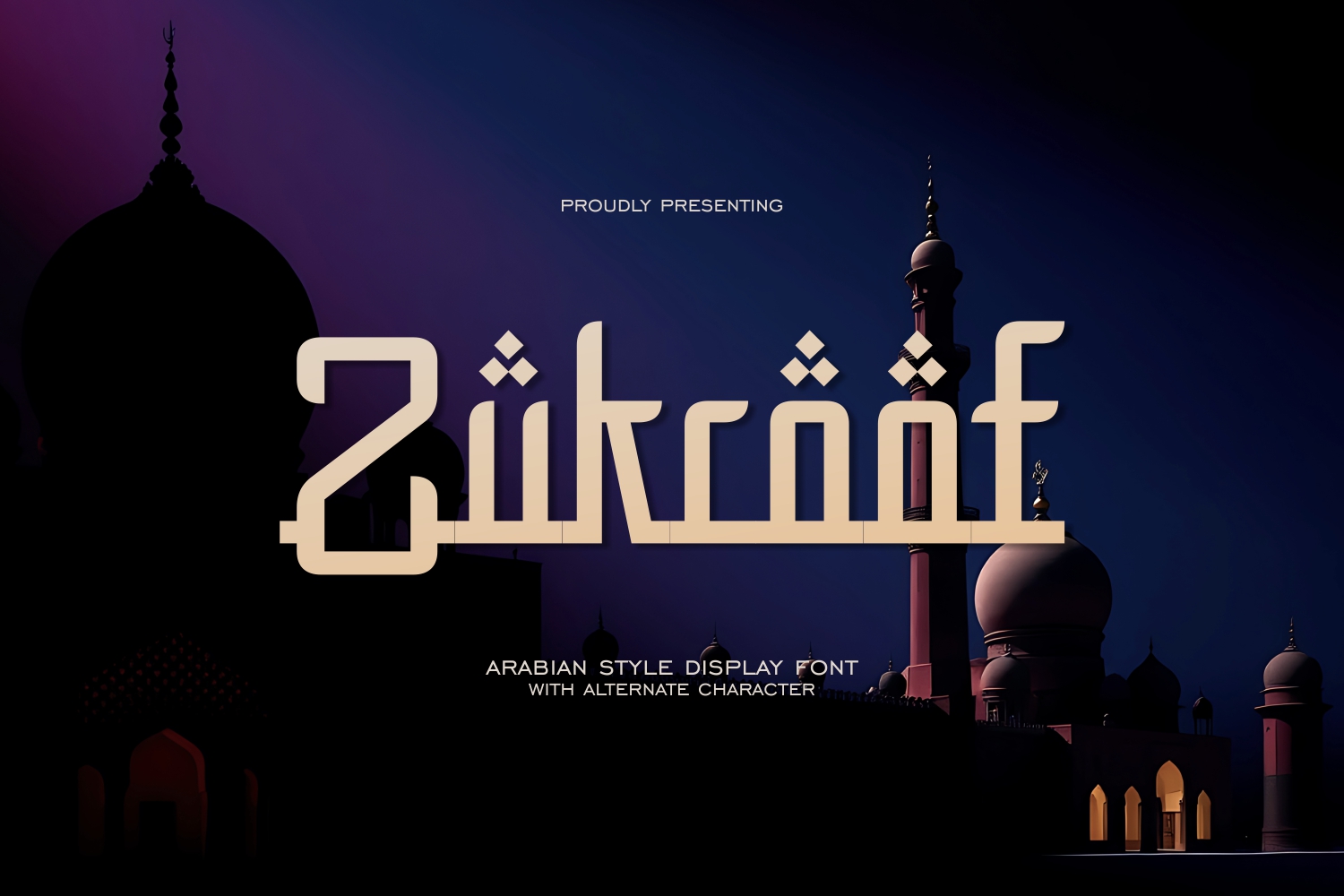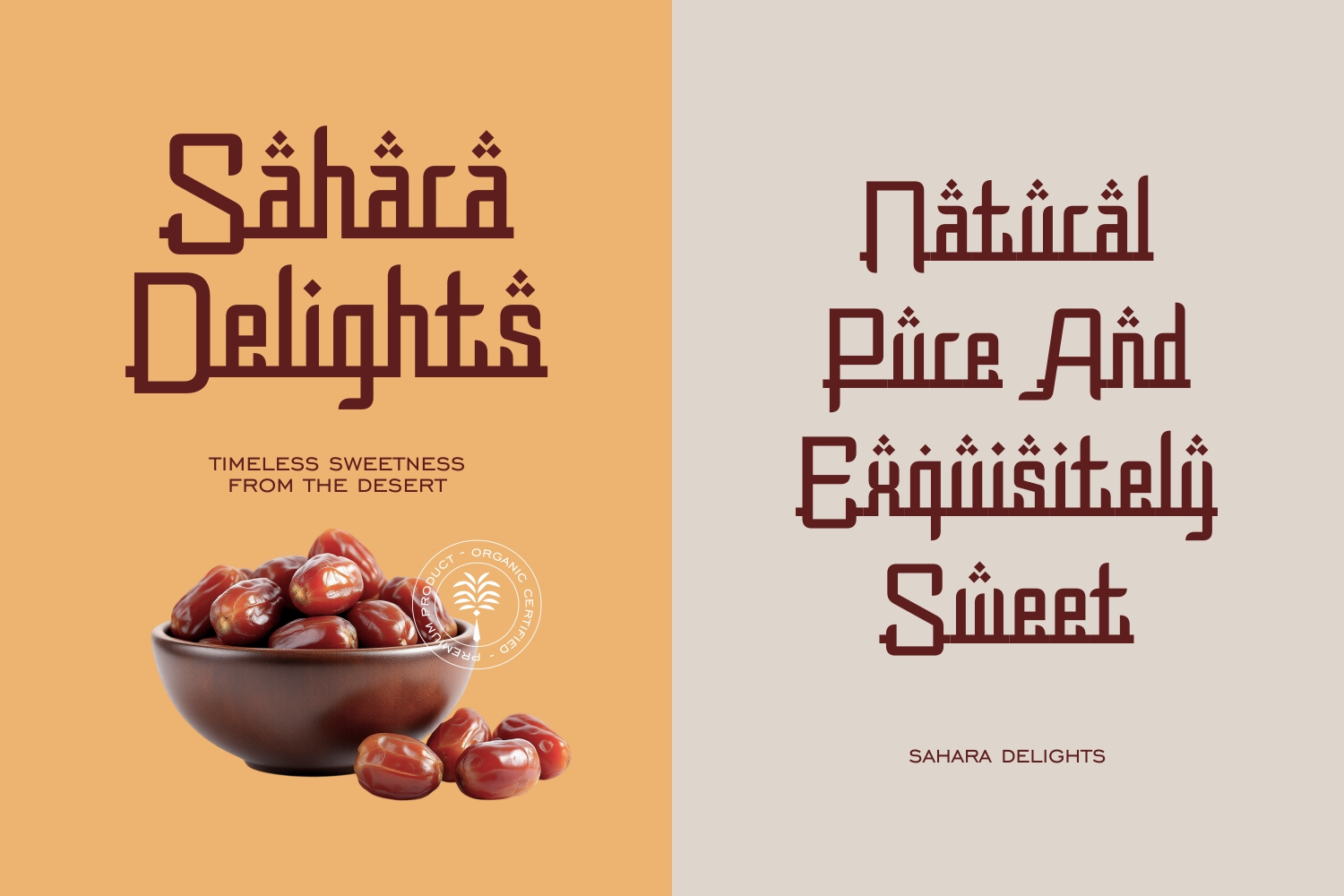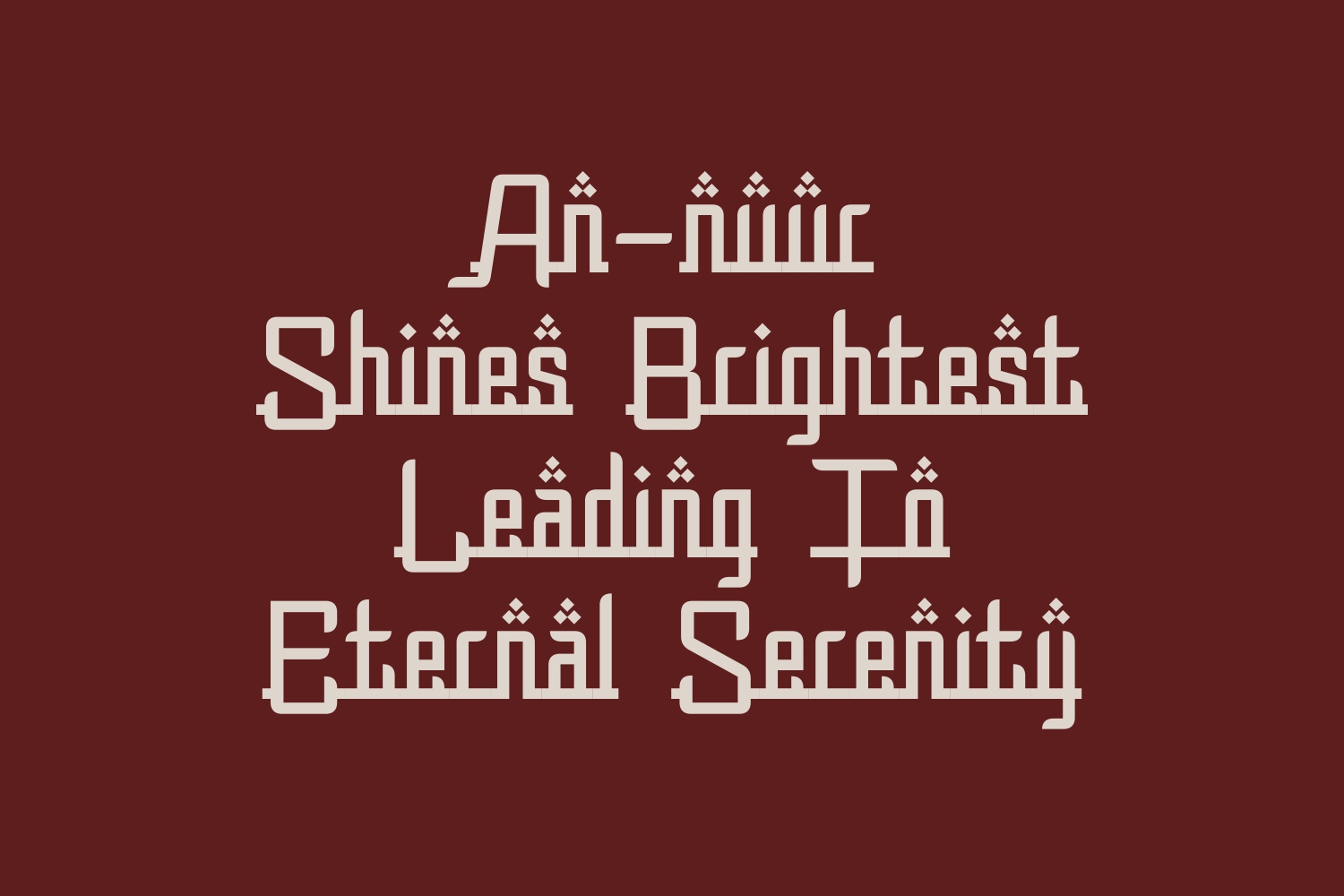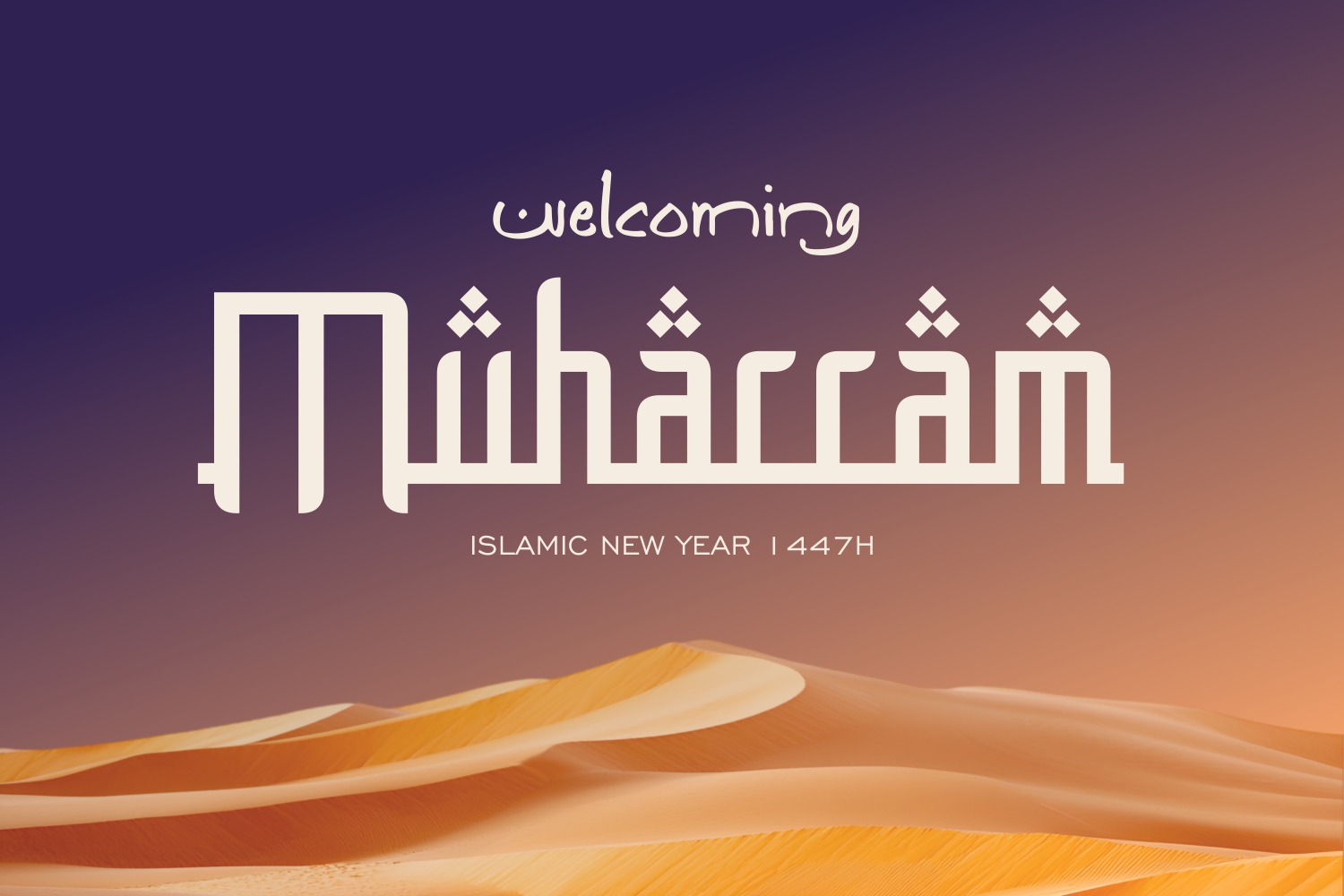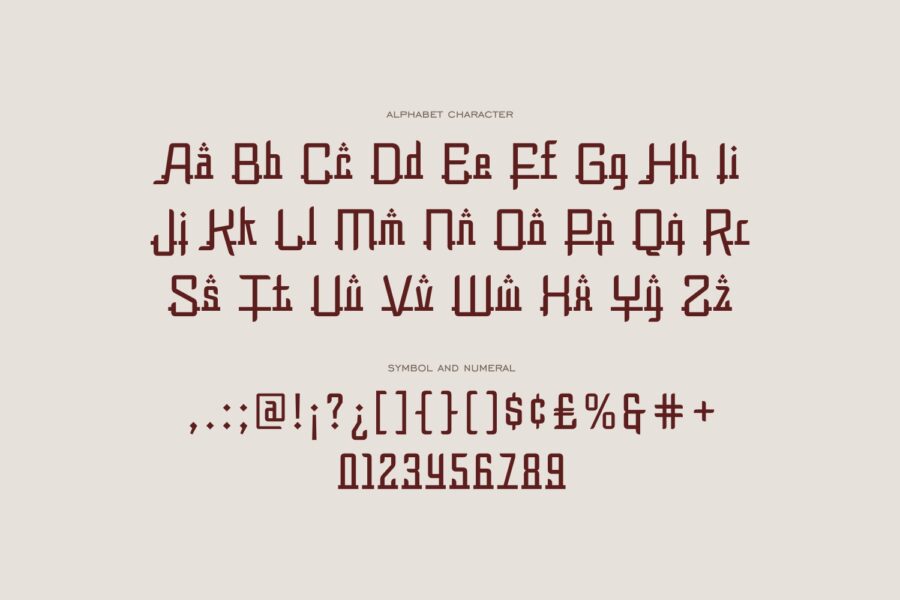
Zukroof is an Arabian-style display font that blends geometric precision with cultural elegance, echoing the beauty of Middle Eastern artistry. Its bold strokes, extended lines, and decorative diacritic alternates create a strong personality that feels both traditional and modern. Perfect for titles, packaging, and branding, Zukroof captures the essence of desert landscapes, Islamic architecture, and timeless cultural heritage.
With alternate characters and stylistic variations, Zukroof offers flexibility for creative projects that demand an exotic yet contemporary look. Ideal for event posters, cultural promotions, food branding, and festival designs, this font ensures every composition shines with authenticity and sophistication.
Zukroof